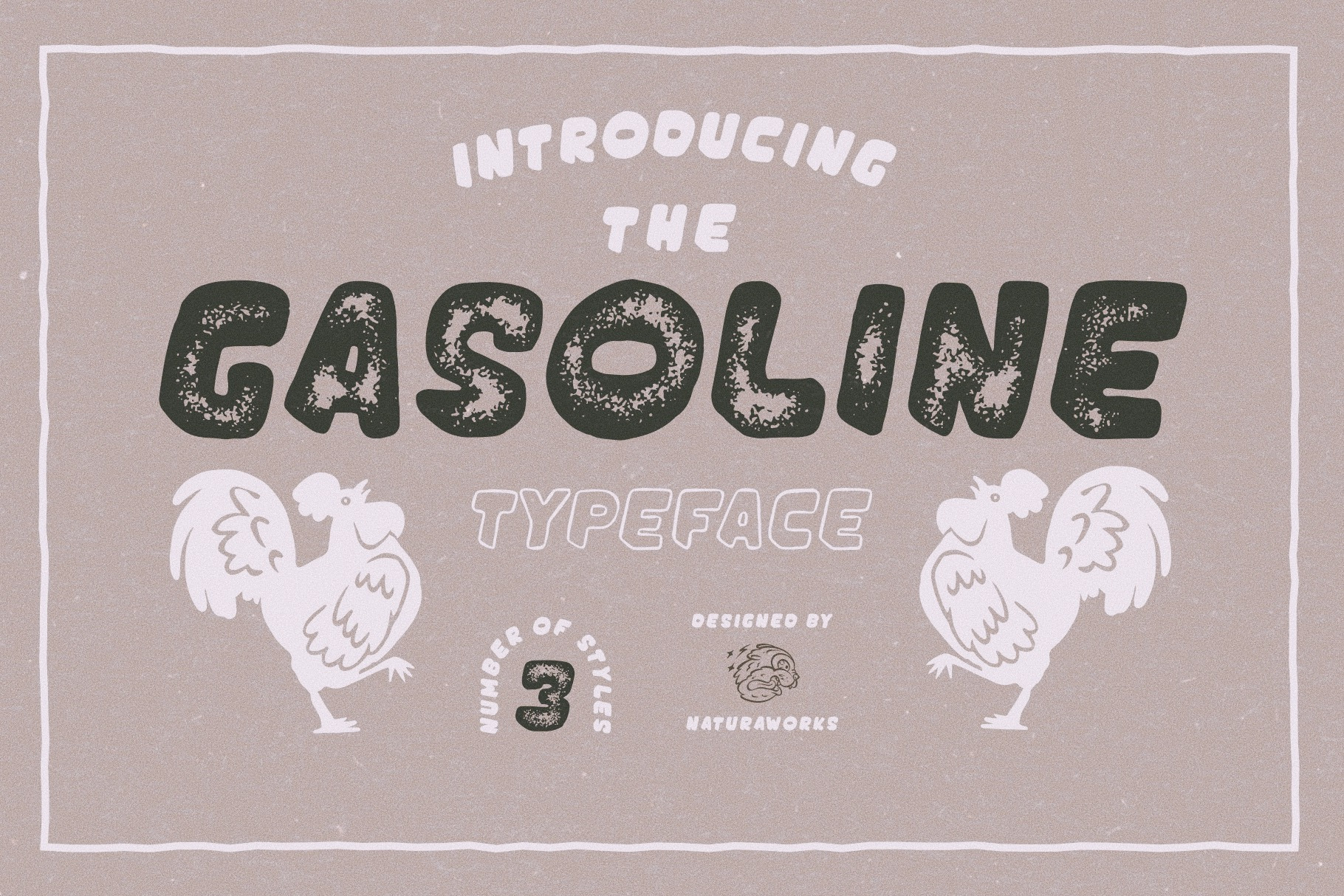
INTRODUCING
GASOLINE TYPEFACE. Is a font inspired by vintage metal barrel oil design. Comes with three styles outline, bold and stamp style. Very fit and easy to make your awesome product, create label design, logo design, badge design, t-shirt design, posters, greeting cards, letterheads or anything looks like vintage and handdrawn vibes. Also you will get some random illustrations and some editable badge designs. Hope you like it!